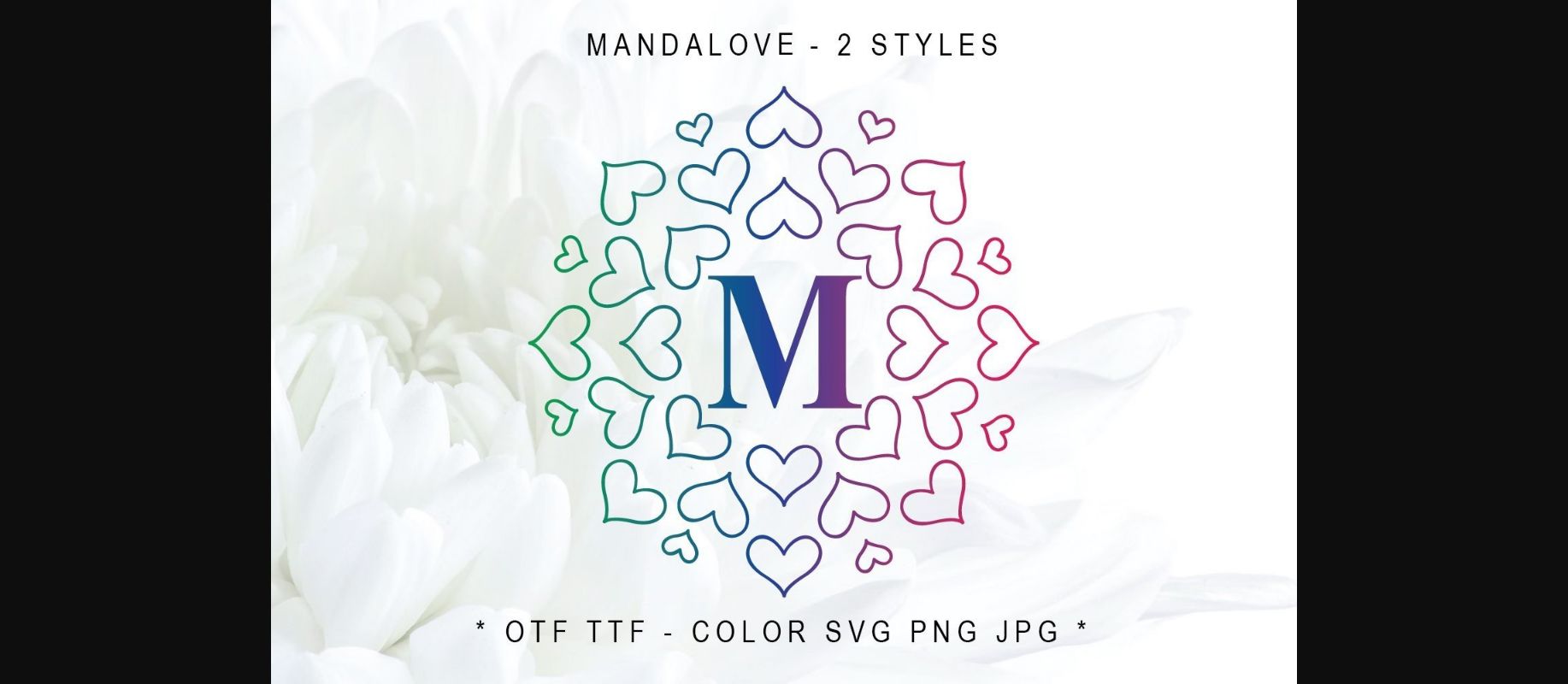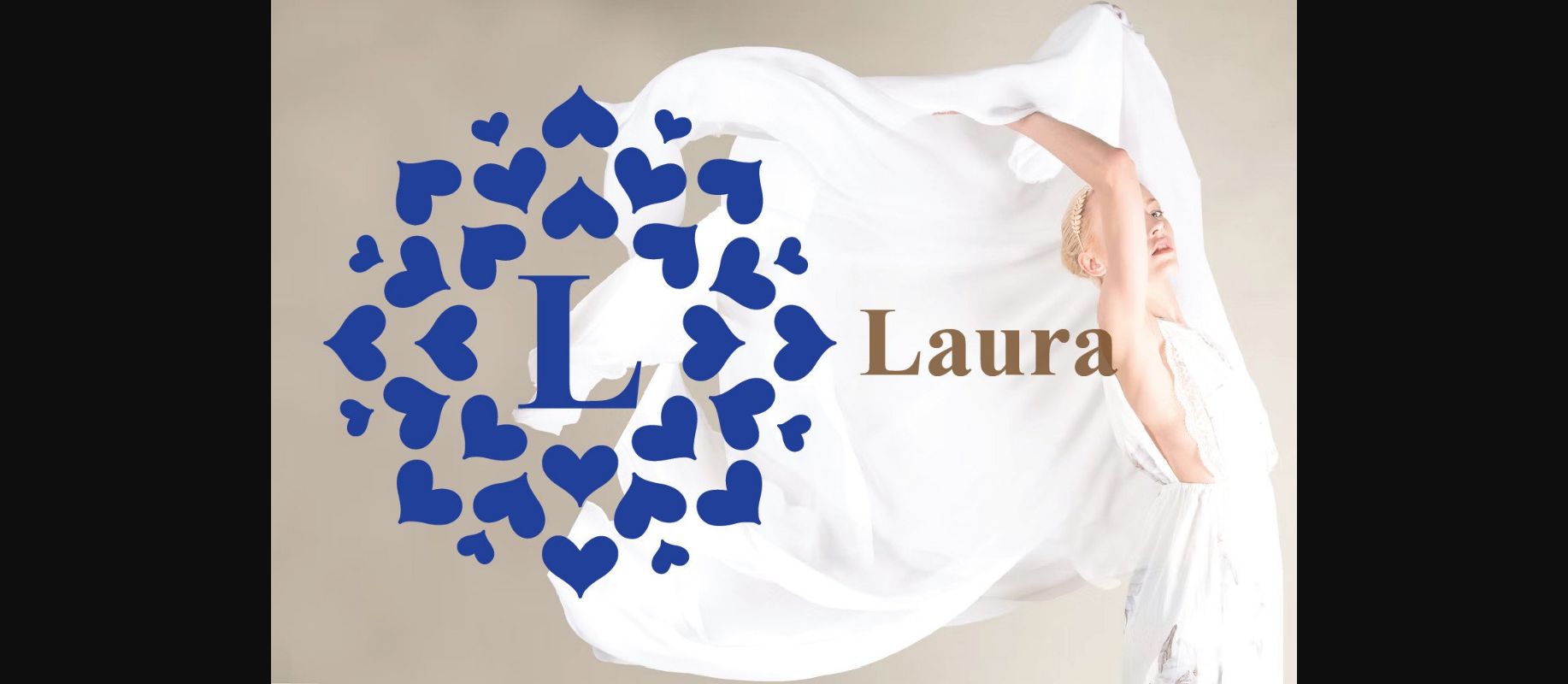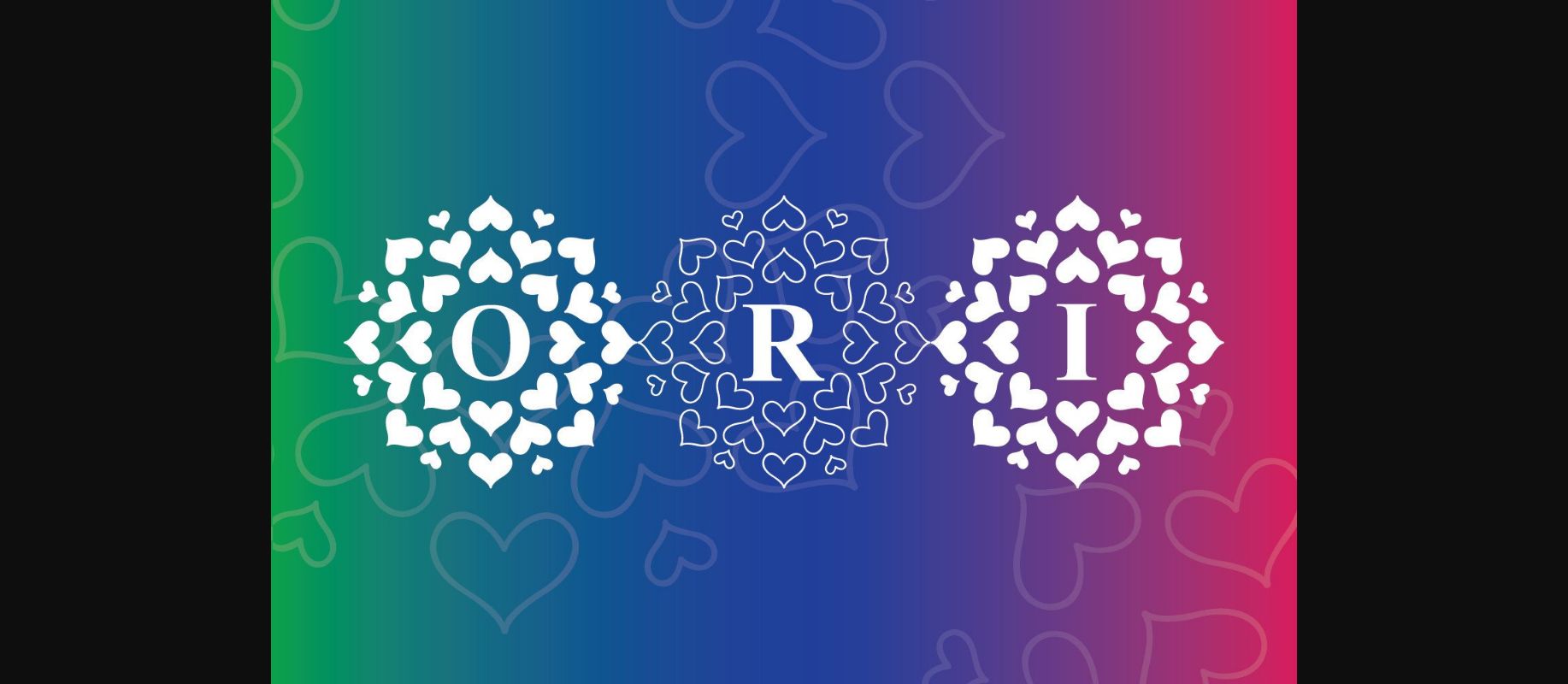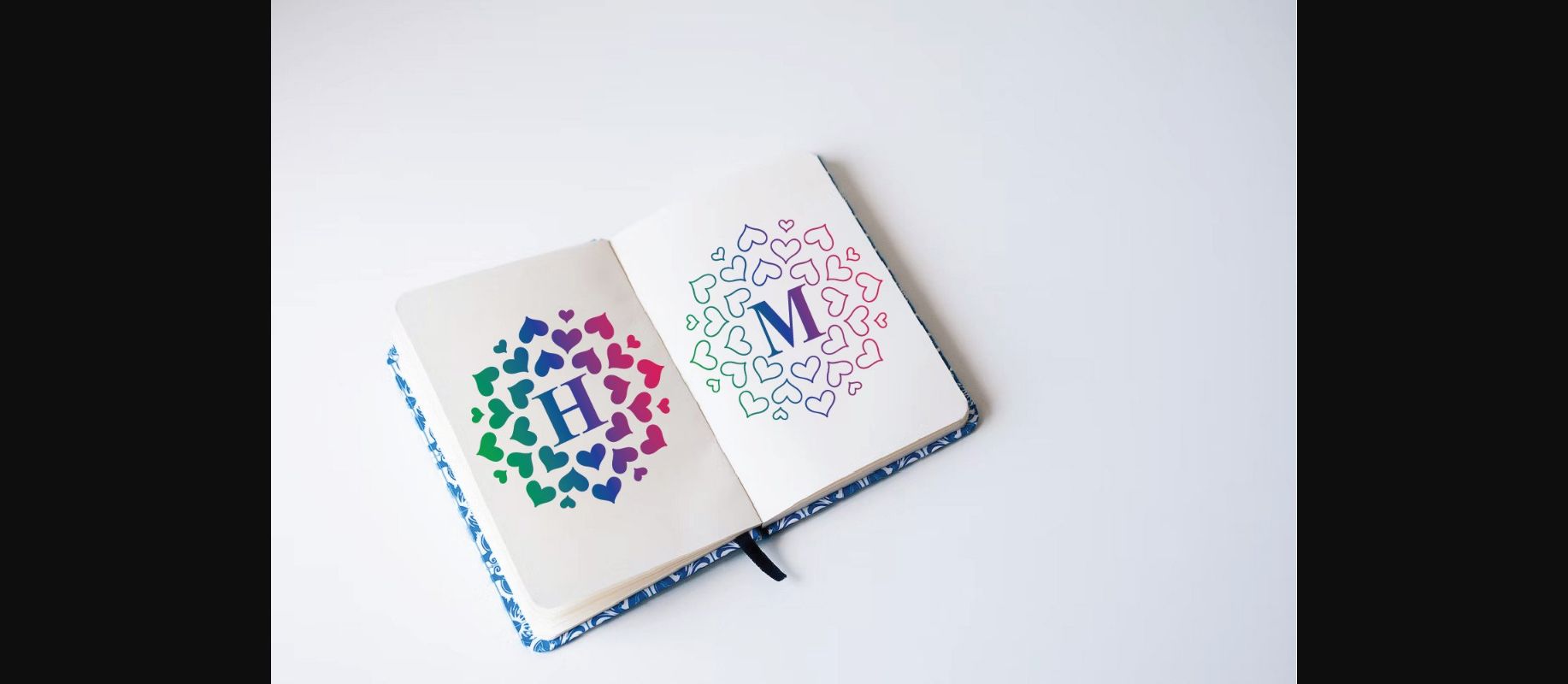
About Mandalove Font
Mandalove is a unique and intricate monogram decorative font. Add this elegant font to each of your love letters, or favorite design ideas, and you will be astounded by the outcome generated!